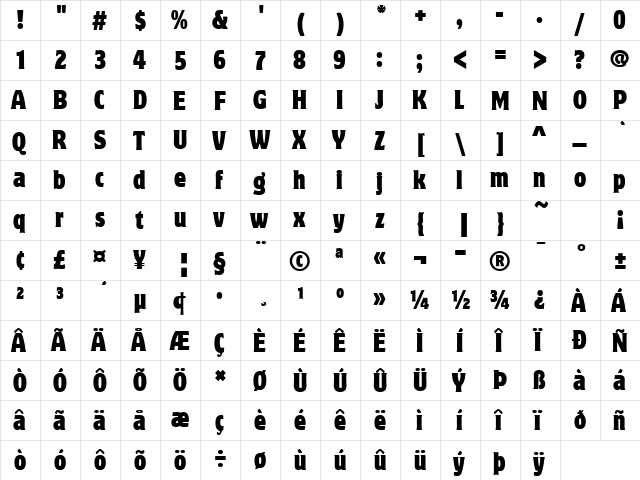
Motter Corpus Cond ICG Regular
Design Context for Motter Corpus Cond ICG Typeface
Motter Corpus Cond ICG takes a measured approach to typography — its balanced proportions and neutral character make it a reliable workhorse for both digital and print work. Its narrow stance lets it pack a punch even in space-constrained designs.